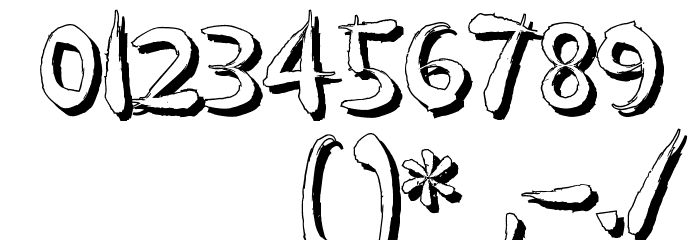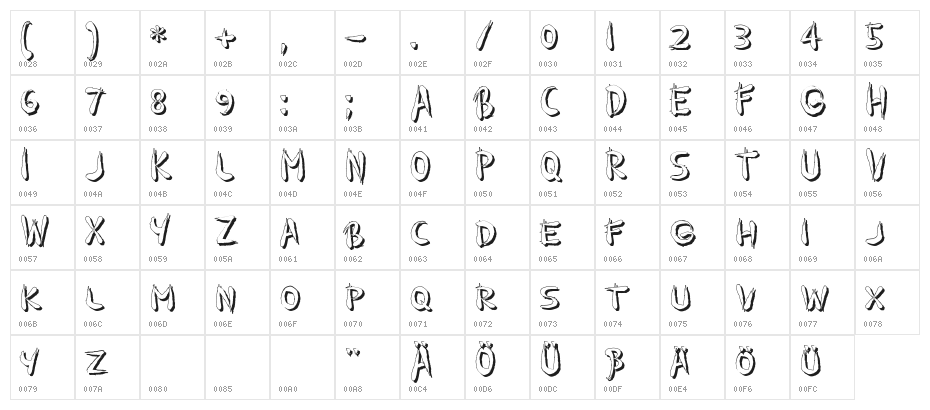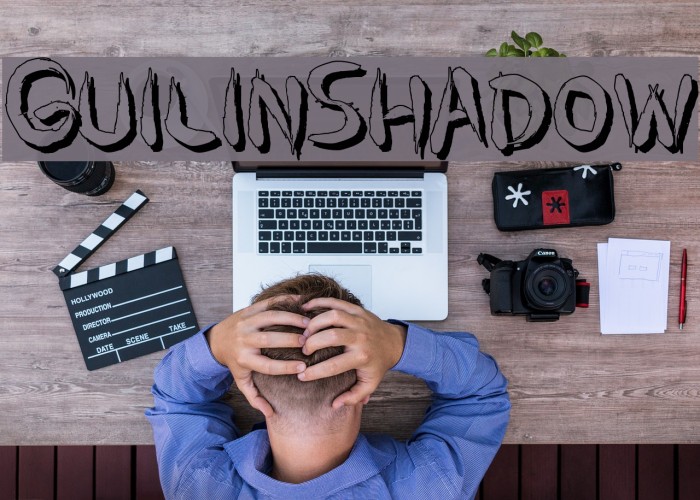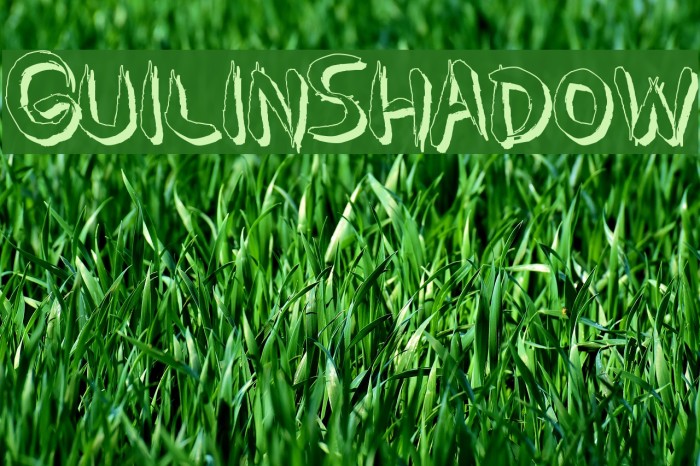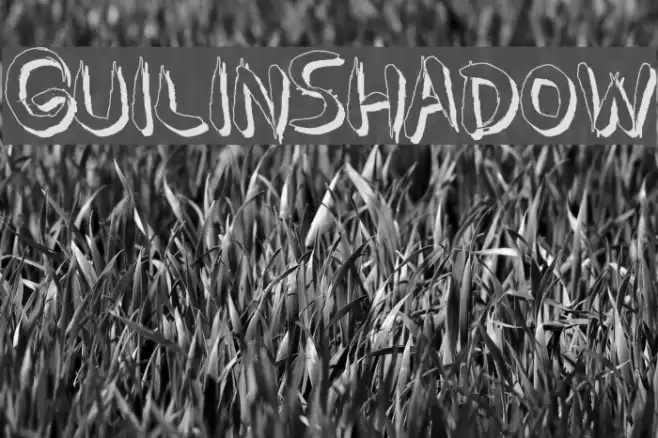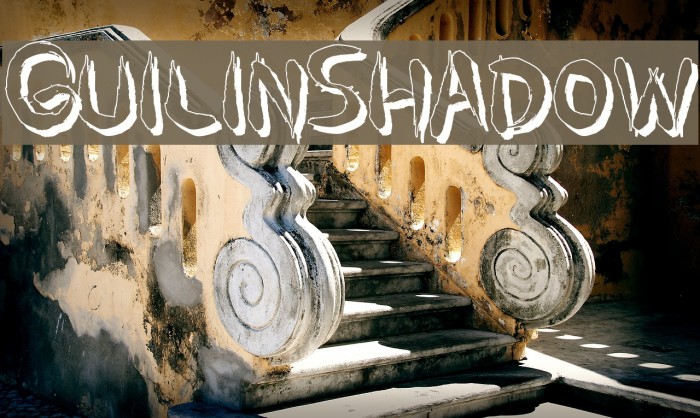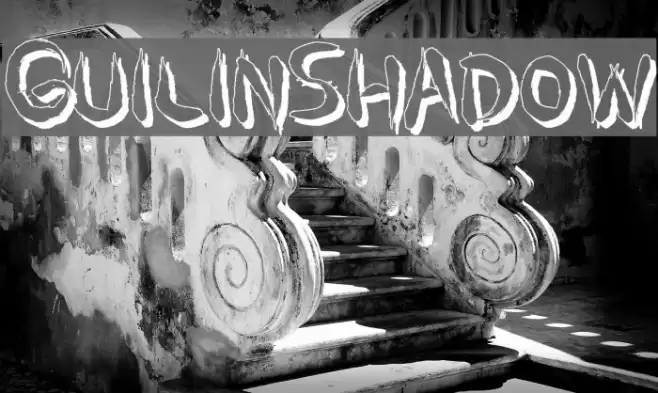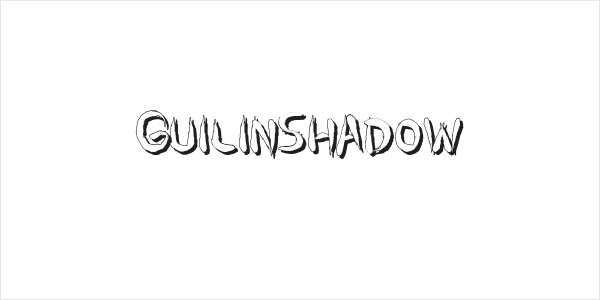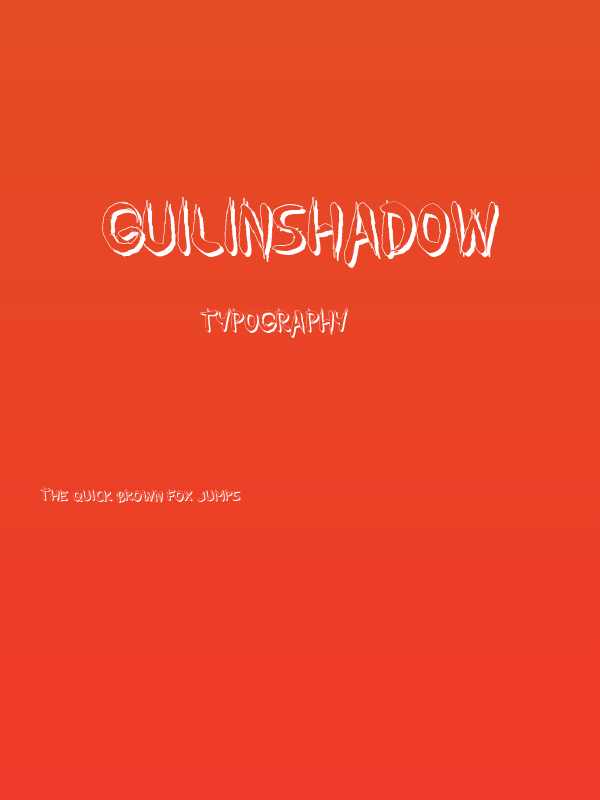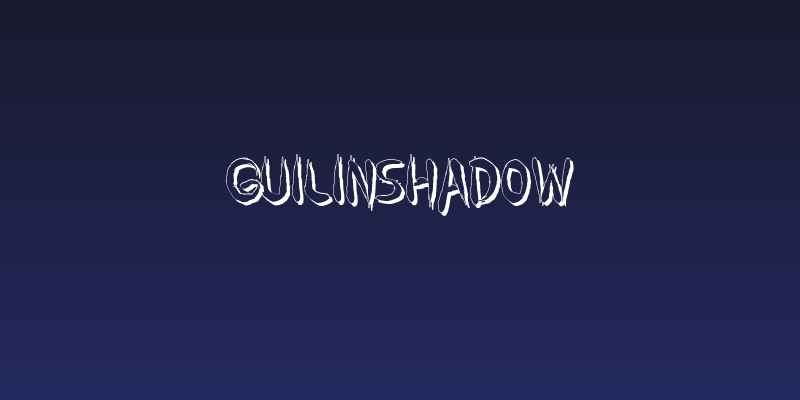
GuilinShadow Font
GuilinShadow Description
This font features a bold, hand-drawn style with a shadow effect that gives it a three-dimensional appearance. The letters are uppercase and lowercase, with a playful, artistic flair. The strokes are uneven, adding to the hand-crafted feel, and the shadowing provides depth and a sense of movement. The numbers and special characters follow the same design, ensuring consistency across all elements. This font is ideal for projects that require a creative and dynamic look, such as posters, artistic branding, or unique invitations.
| Proposed Projects | Ideal for posters, artistic branding, unique invitations, and creative projects. |